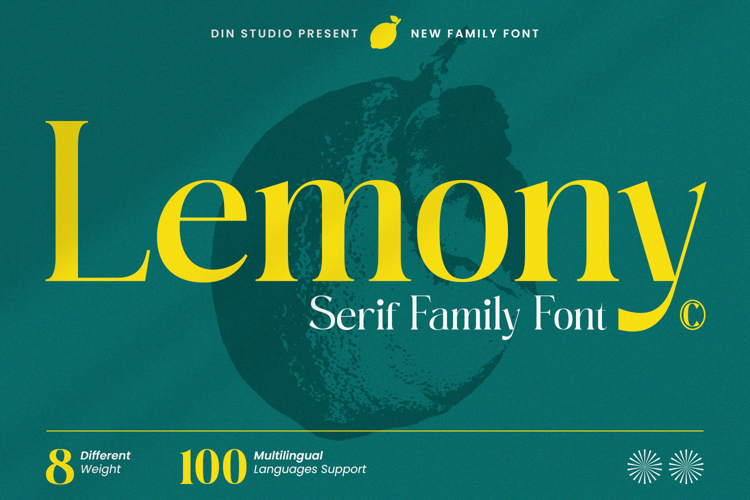
Lemony Font
Product Description:
Lemony is a serif font family in 8 different volume options expressing formality and elegance in your designs. Its family character is that it has small lines in horizontal or vertical forms on the letter body, easing readers to read the letter as the lines guide readers’ attention to the reading directions.
Features:
• Ligatures
• Multilingual Supports
• Numerals and Punctuations